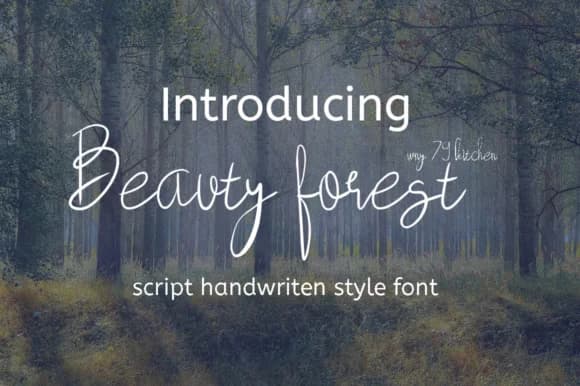
1 / 5About Forest Dream Font
Forest Dream Font by wny79 is a flowing contemporary handwritten script that brings organic, expressive movement to your typography work. With its distinctive irregular baseline and authentically hand-drawn aesthetic, this font excels at creating personal, approachable designs that feel genuine rather than mass-produced or impersonal. It's well-suited for wedding invitation suites, personalized greeting cards, artisanal product packaging and labels, and social media branding for lifestyle brands that genuinely value warmth and distinctive character over polished sterility.
The font's natural rhythm makes it invaluable for entrepreneurs and small businesses seeking to establish boutique or artisanal visual identities without the significant expense of commissioning custom lettering. Whether you're designing packaging for small-batch beauty products, window signage for independent bookshops, event posters with genuine personality, DIY craft labels, or specialty food branding, Forest Dream delivers the expressive visual quality that contemporary audiences naturally connect with. Its letterforms maintain excellent legibility across both print and digital formats, ensuring your message reads clearly and effectively regardless of how you use it.
- Elegant, Flowing, Forest Dream
Forest Dream Font is a script font that shines as a display or heading face. Pair it with a clean sans-serif or serif font for body text β the contrast creates a clear hierarchy while the two styles stay balanced and easy to read.
Forest Dream Font
by wny79